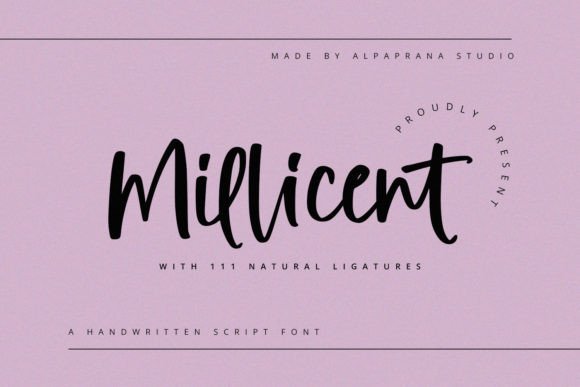
Step into the realm of exquisite typography with Millicent Font, a captivating script font that dances across your designs with elegance and grace. Its hand-painted style evokes the charm of a skilled calligrapher's touch, adding a touch of artistry and sophistication to your creations.
As a script font, Millicent possesses an inherent beauty that captivates the eye. Its flowing curves and delicate strokes lend an air of fluidity and movement, as if each letter were effortlessly woven together by an invisible thread. This dynamic quality makes Millicent an ideal choice for headlines, logos, branding, and social media graphics that demand attention.
Beyond its visual appeal, Millicent is also a remarkably versatile font, capable of adapting to a wide range of design aesthetics. Its youthful and contemporary vibe makes it perfect for projects that seek a modern and trendy touch, while its elegant and timeless character lends itself effortlessly to classic and sophisticated designs.
Transform your designs into masterpieces with Millicent Font, the script font that embodies elegance, versatility, and artistic flair. Let your words dance across the page with grace and charm, captivating your audience and leaving a lasting impression.